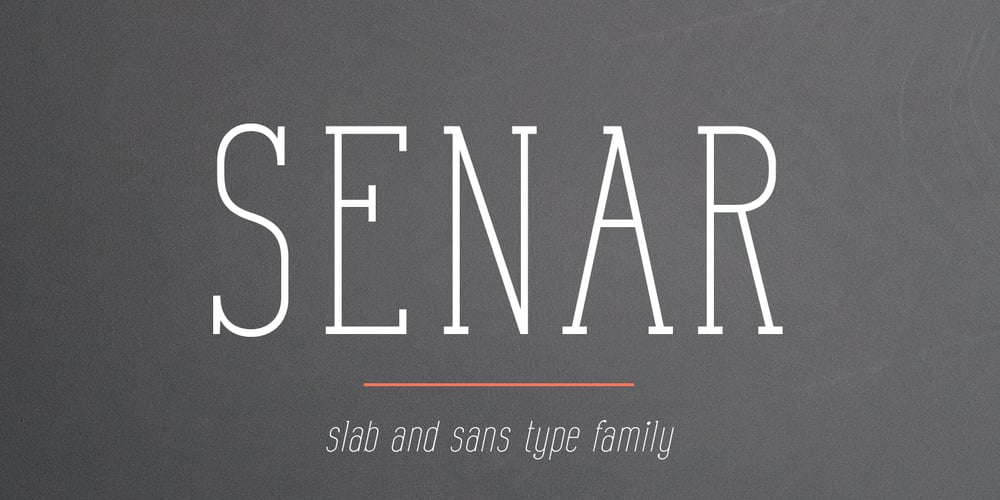
Senar Font Family was designed by Pavel Larin and published by Larin Type Co. Senar contains 20 styles and family package options. Senar is a great font family that includes 20 fonts ( Slab serif – 5 weights upright and 5 weights oblique, Sans serif – 5 weights upright and 5 weights oblique ). It is a modern, versatile and easy-to-read font that is perfect for a wide range of design solutions, such as logos, branding, label, packaging, web titles, text descriptions, as a primary or secondary, and much more.